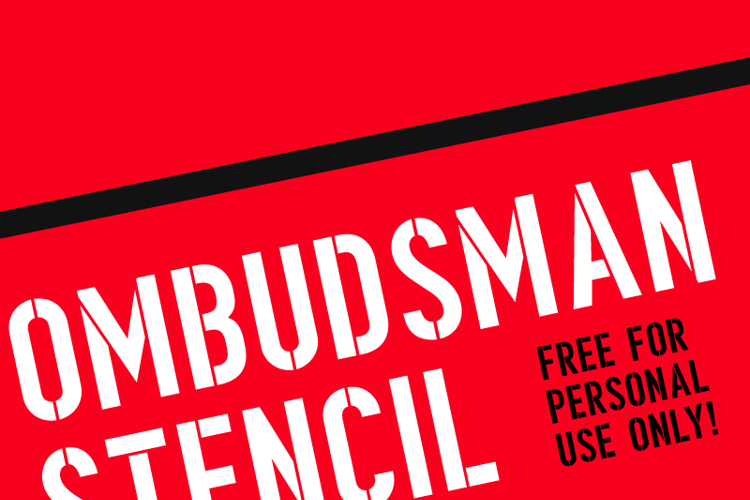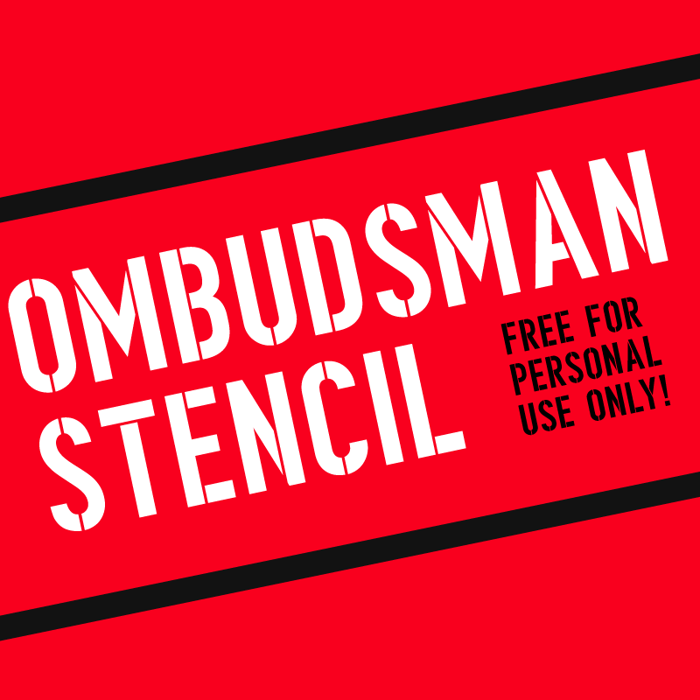
Ombudsman Stencil Font
About Ombudsman Stencil Font
A fresh and so clean stencil font for modern military use, or underground political campaigns. Or something in between.
The font supports at least english, french, german, swedish, danish, finish and even norwegian.